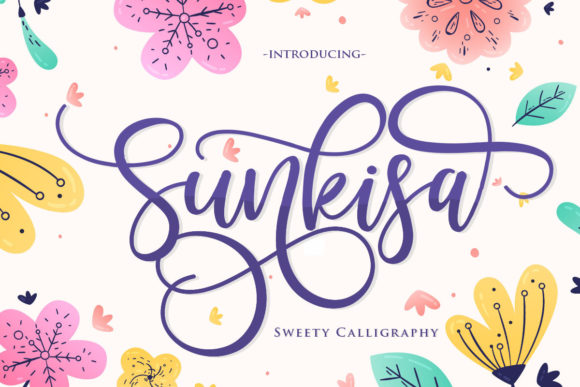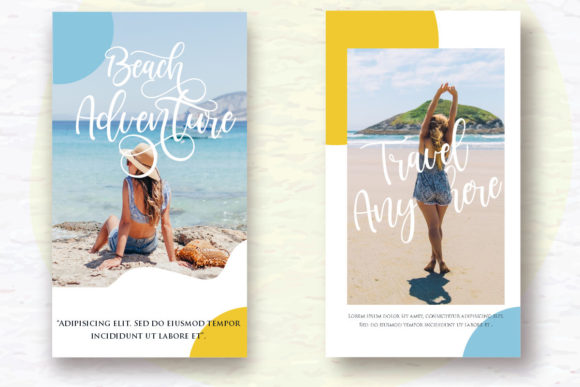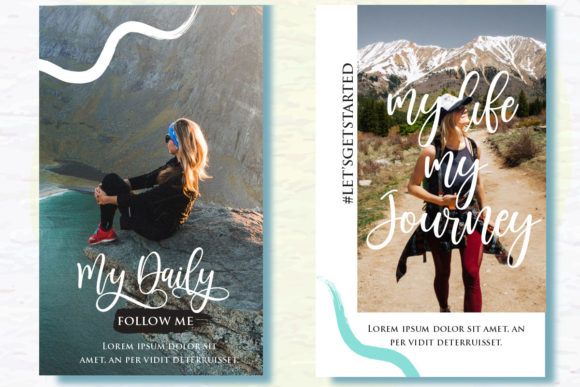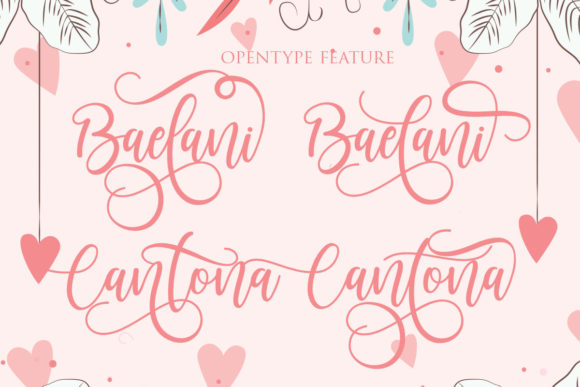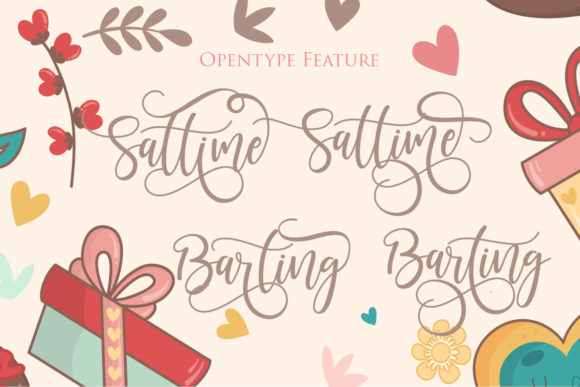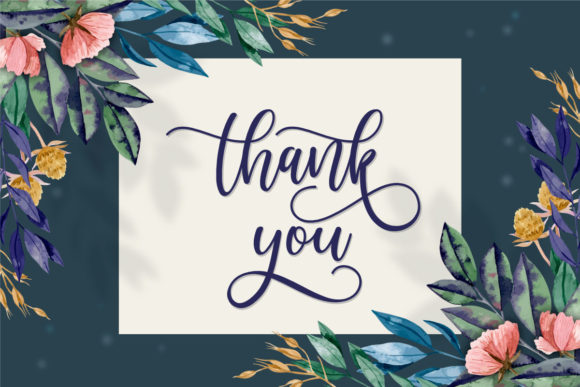
About Sunkisa Font
Sunkisa is a dynamic, cute hand-lettered calligraphy font. The beautifully rounded characters make it the perfect font for creating stunning crafts. Sunkisa comes packed with PUA encoded swashes, which will allow you to add a decorative touch within seconds. Get inspired by its authentic feel and use it to create gorgeous wedding invitations, beautiful stationary art, eye-catching social media posts, and cute greeting cards.